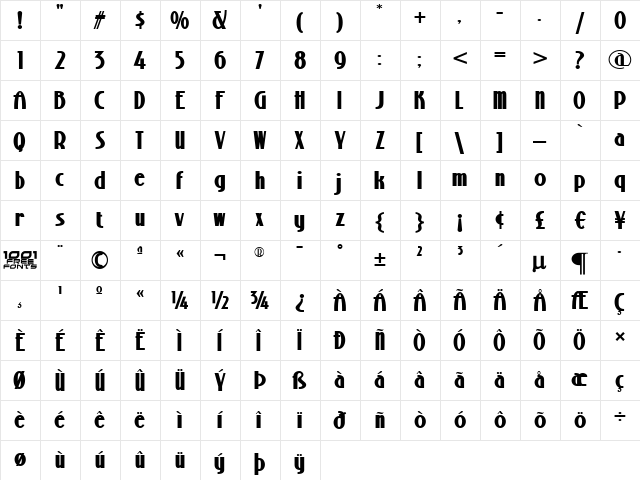
Stony Island NF Bold Font Preview
Stony Island NF Bold
Stony Island NF Bold Font Details
Design Context for Stony Island NF Typeface
Stony Island NF is a composed and adaptable typeface that performs quietly and consistently across a wide range of design contexts. Its bold stroke weight gives it real presence on the page.